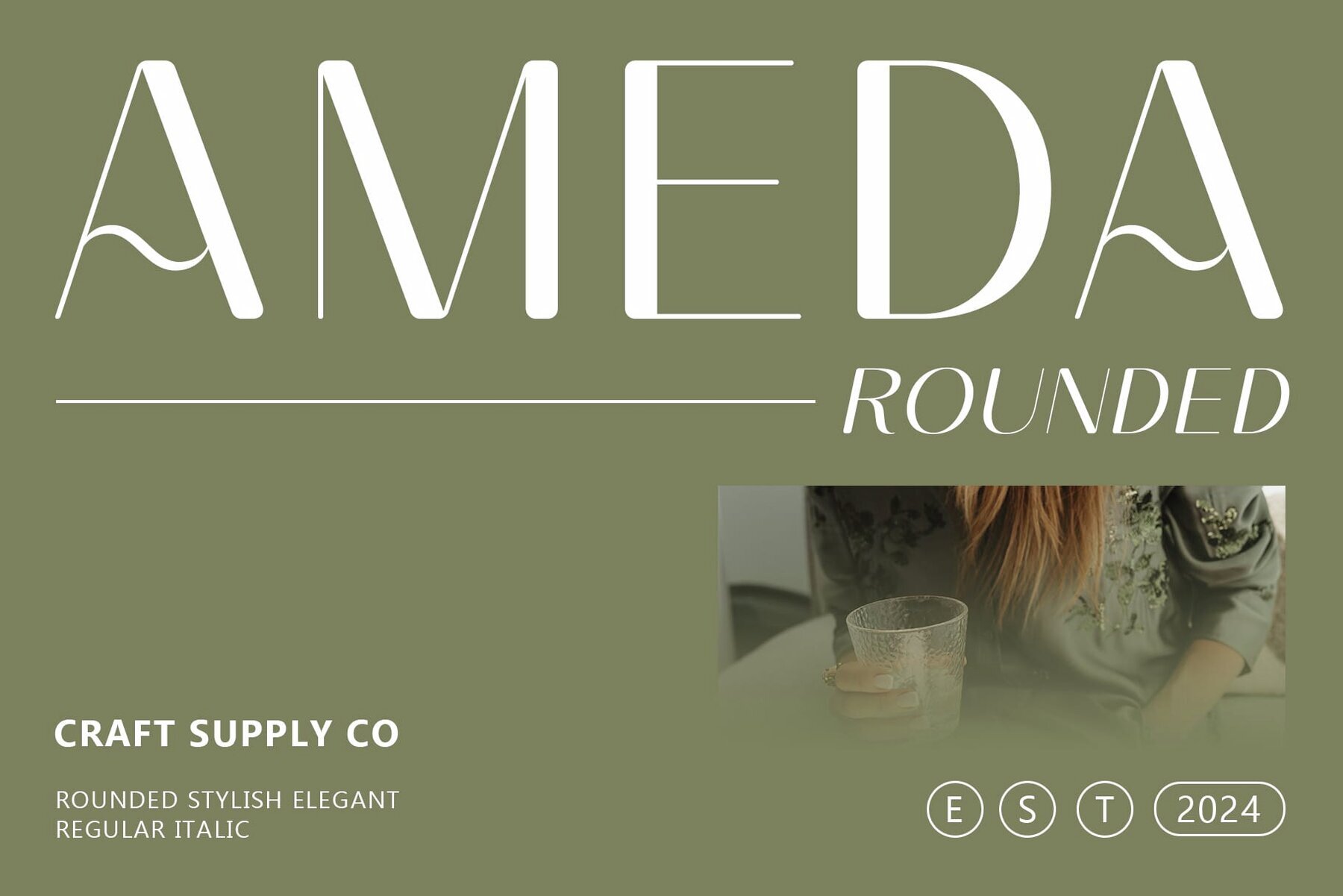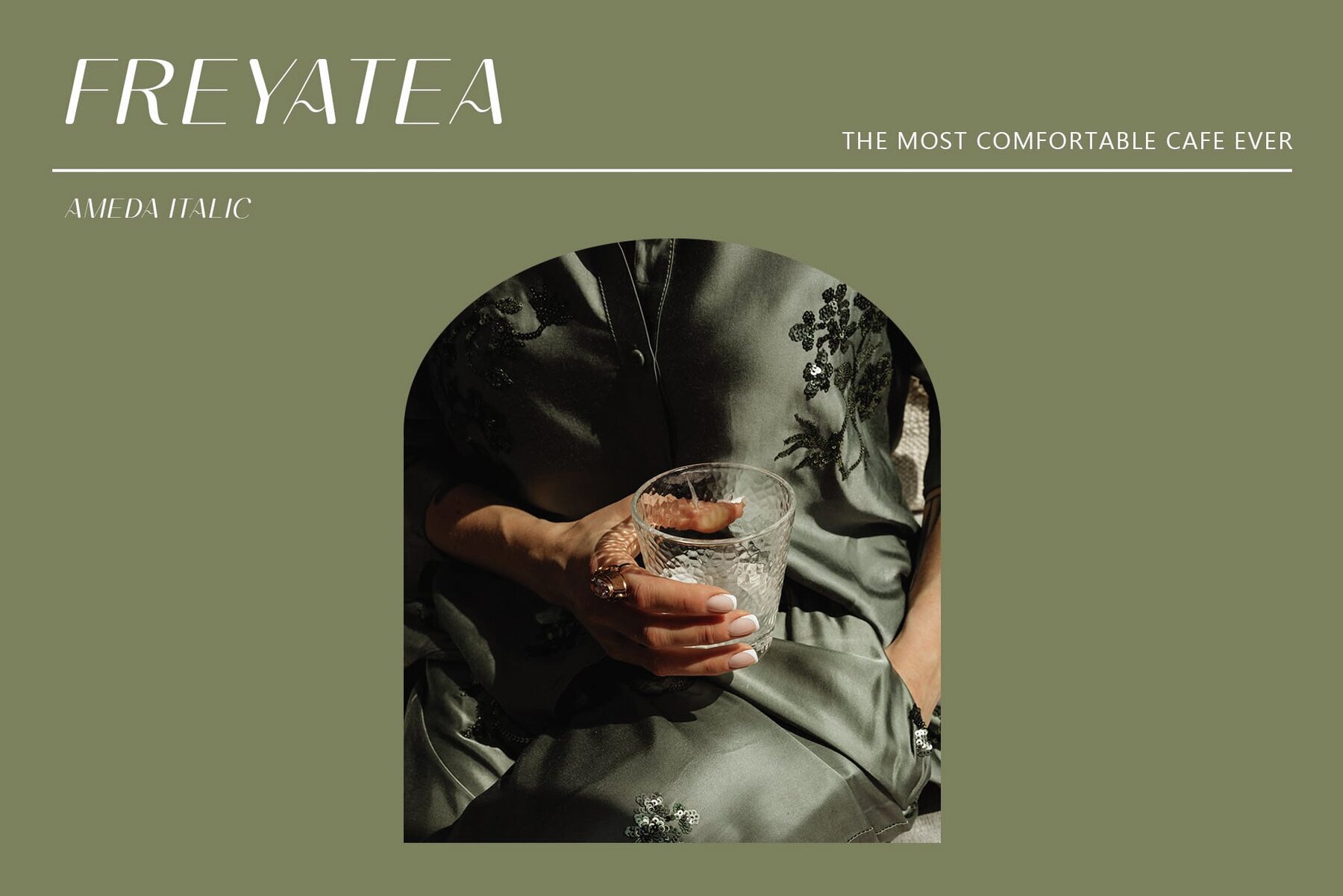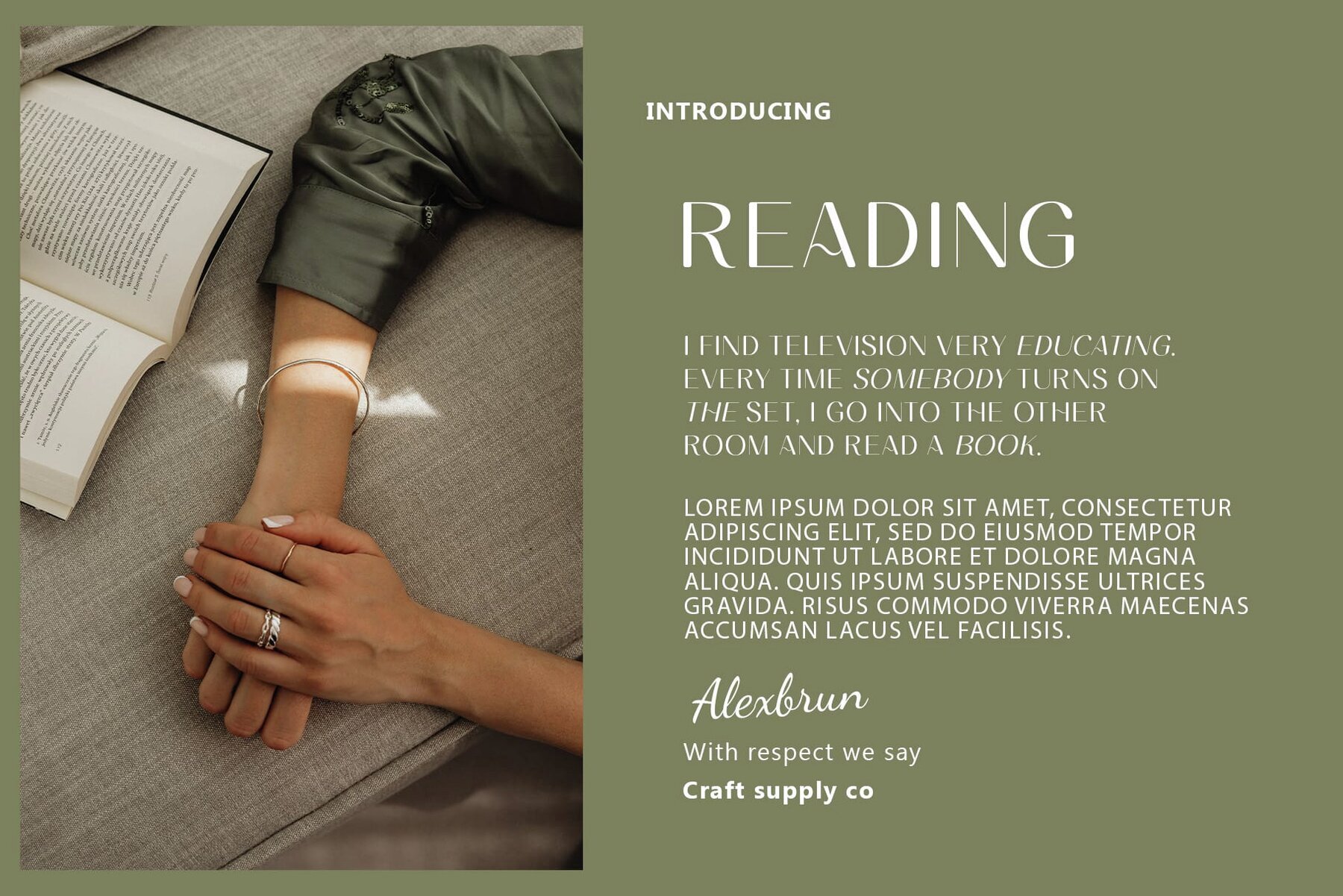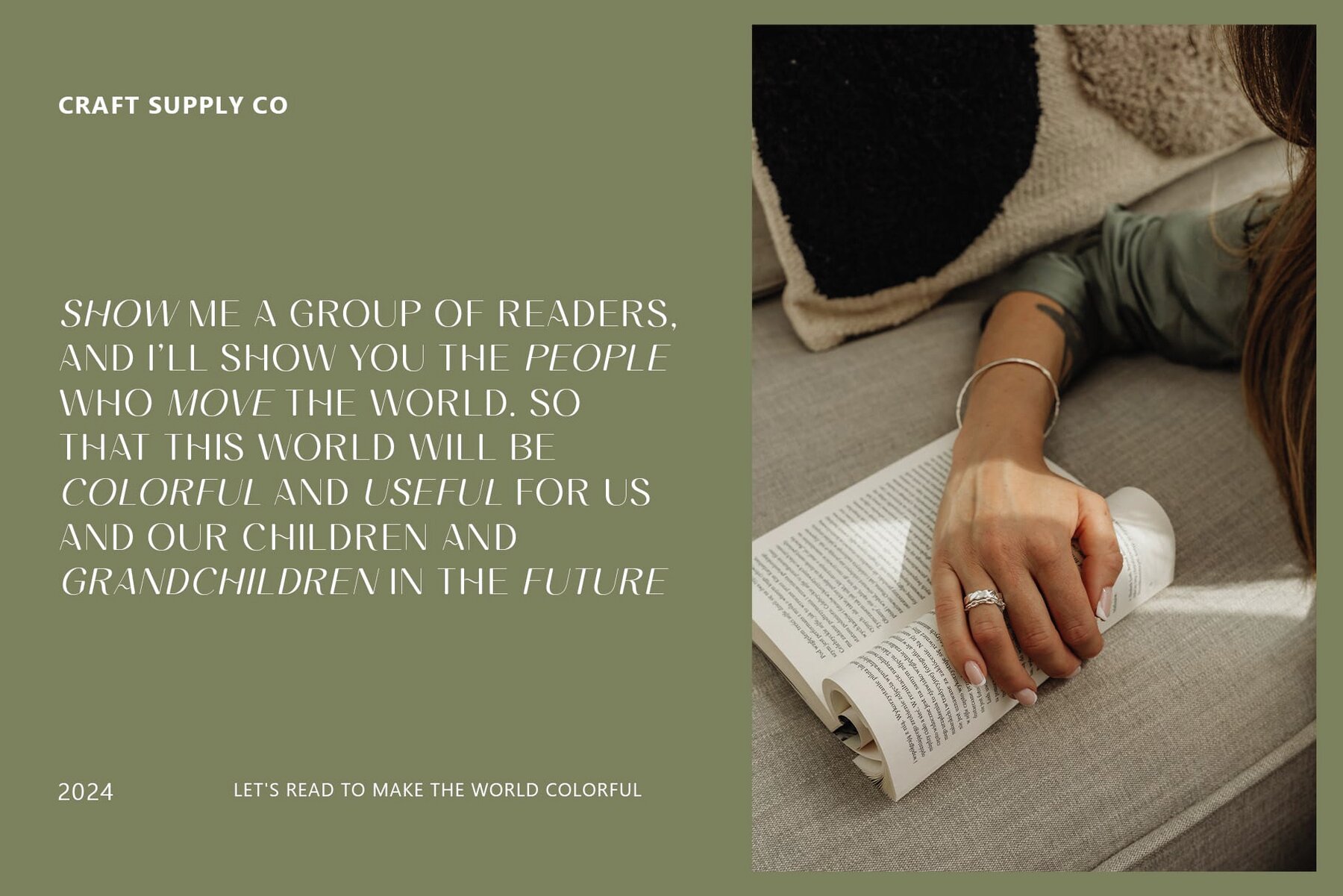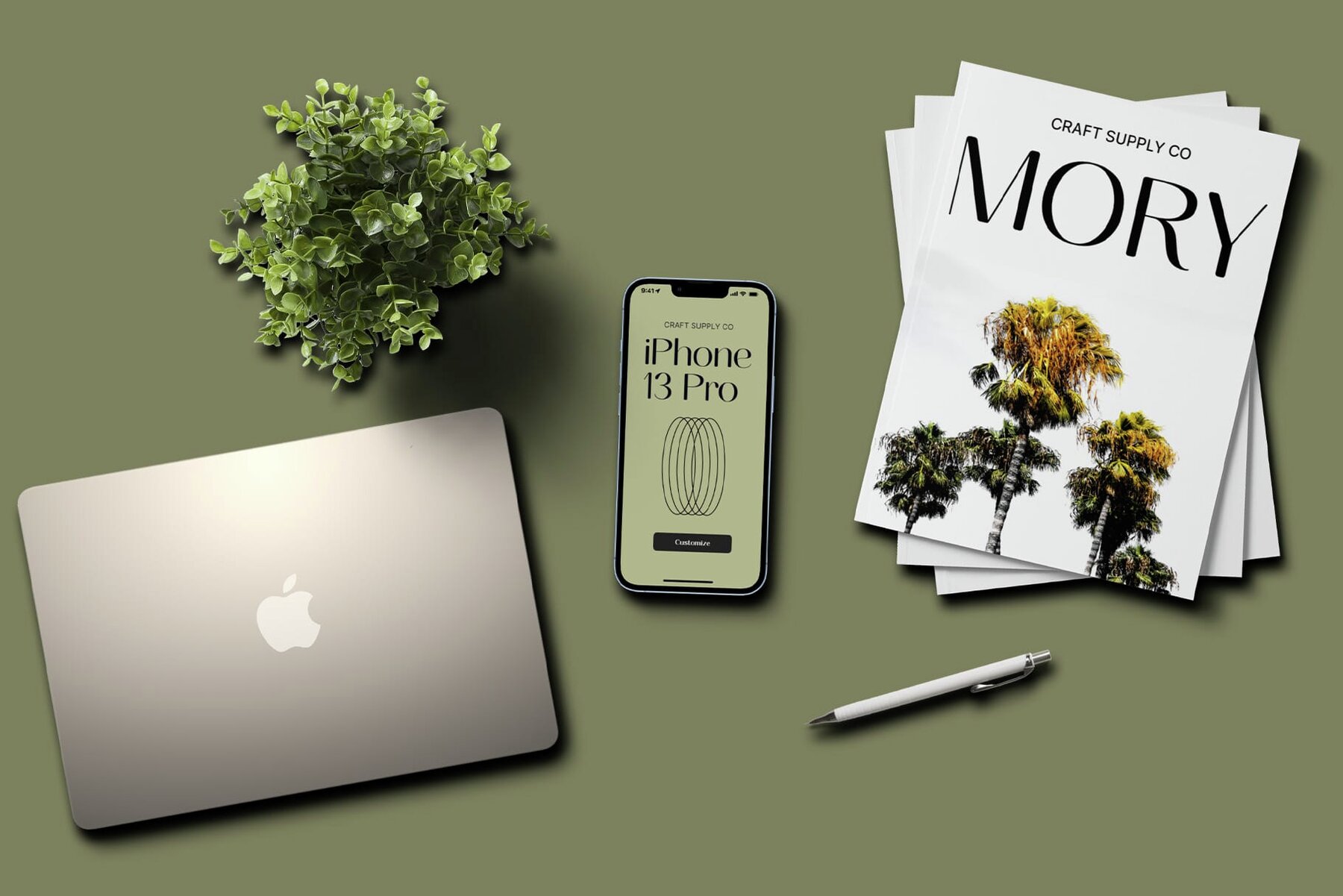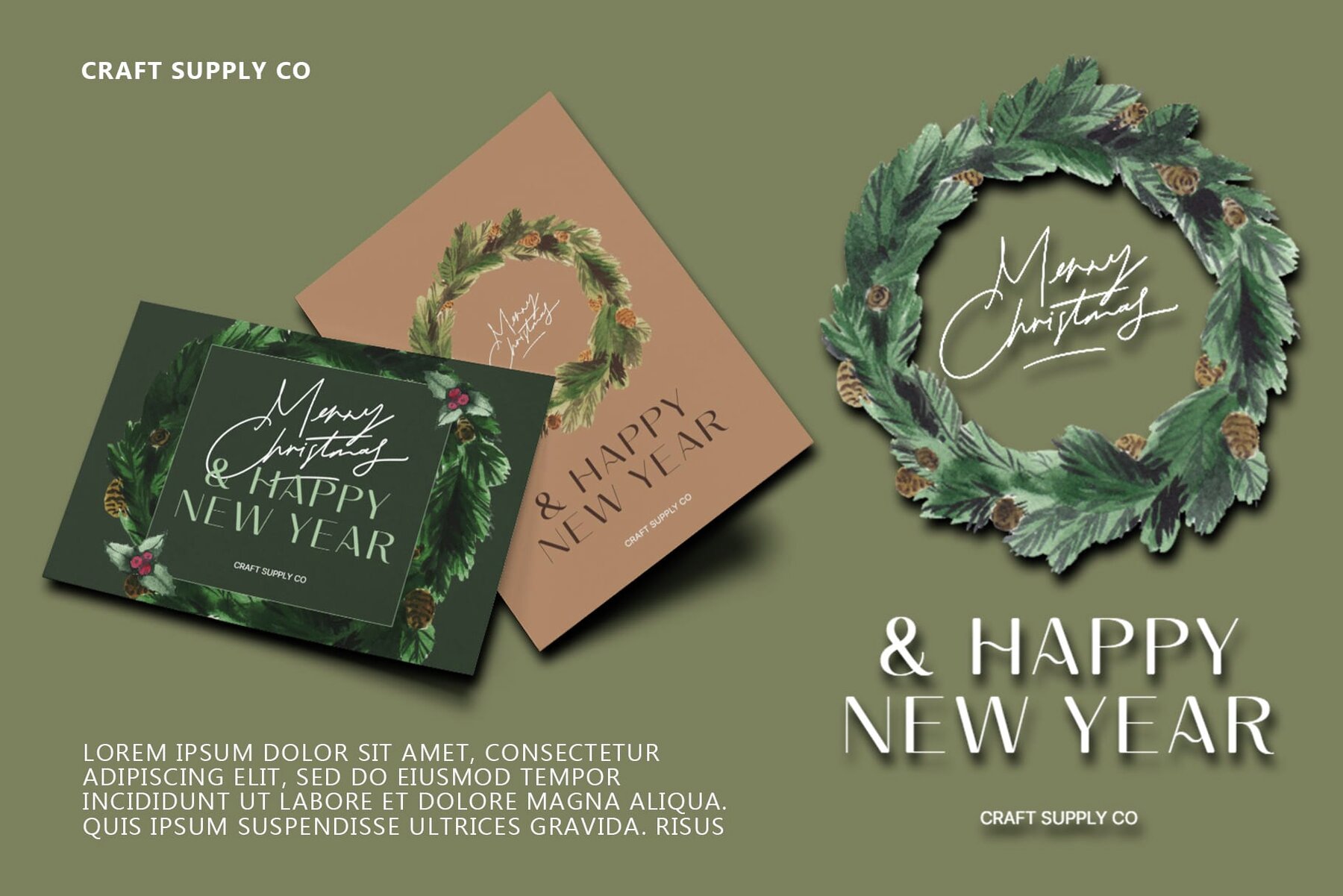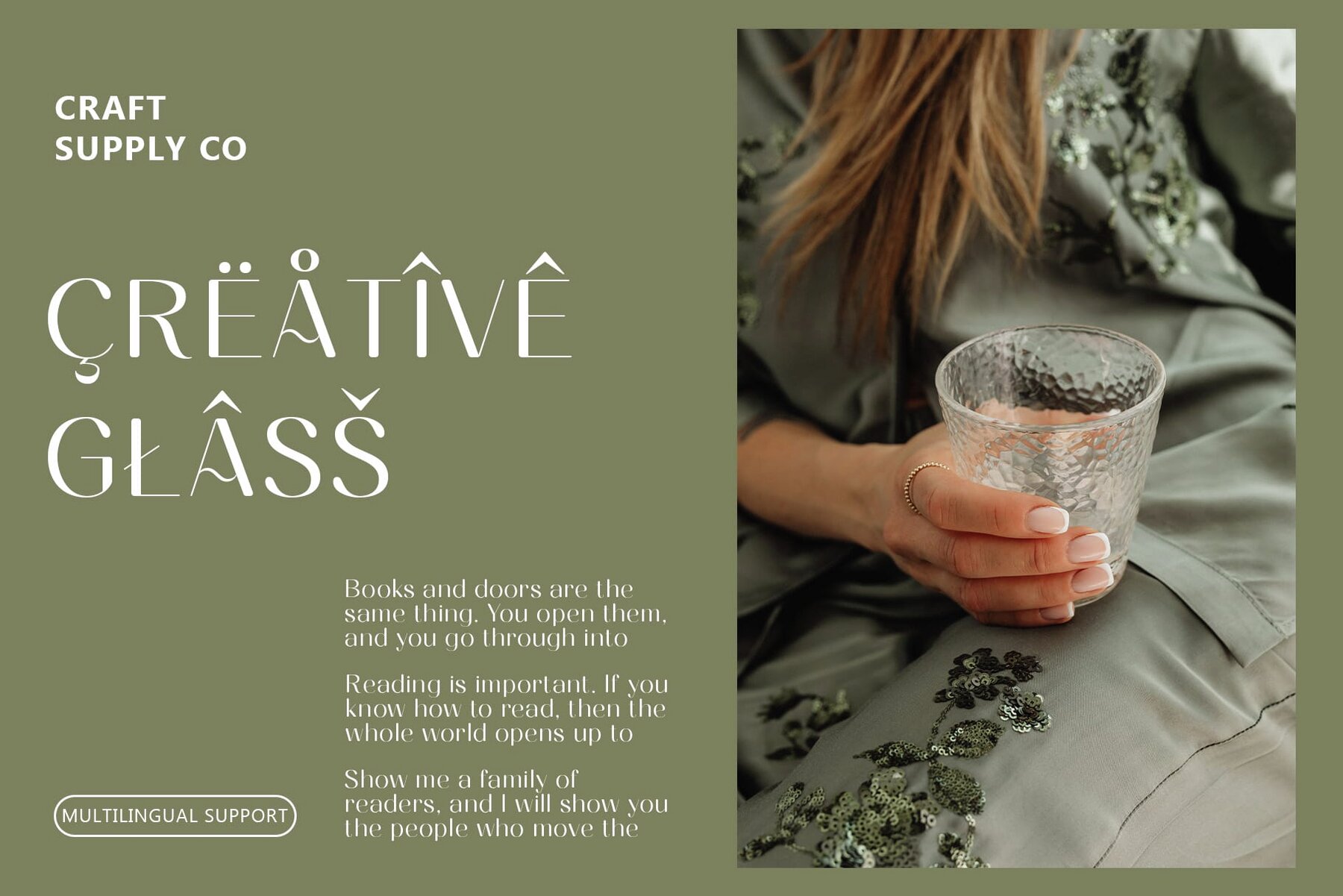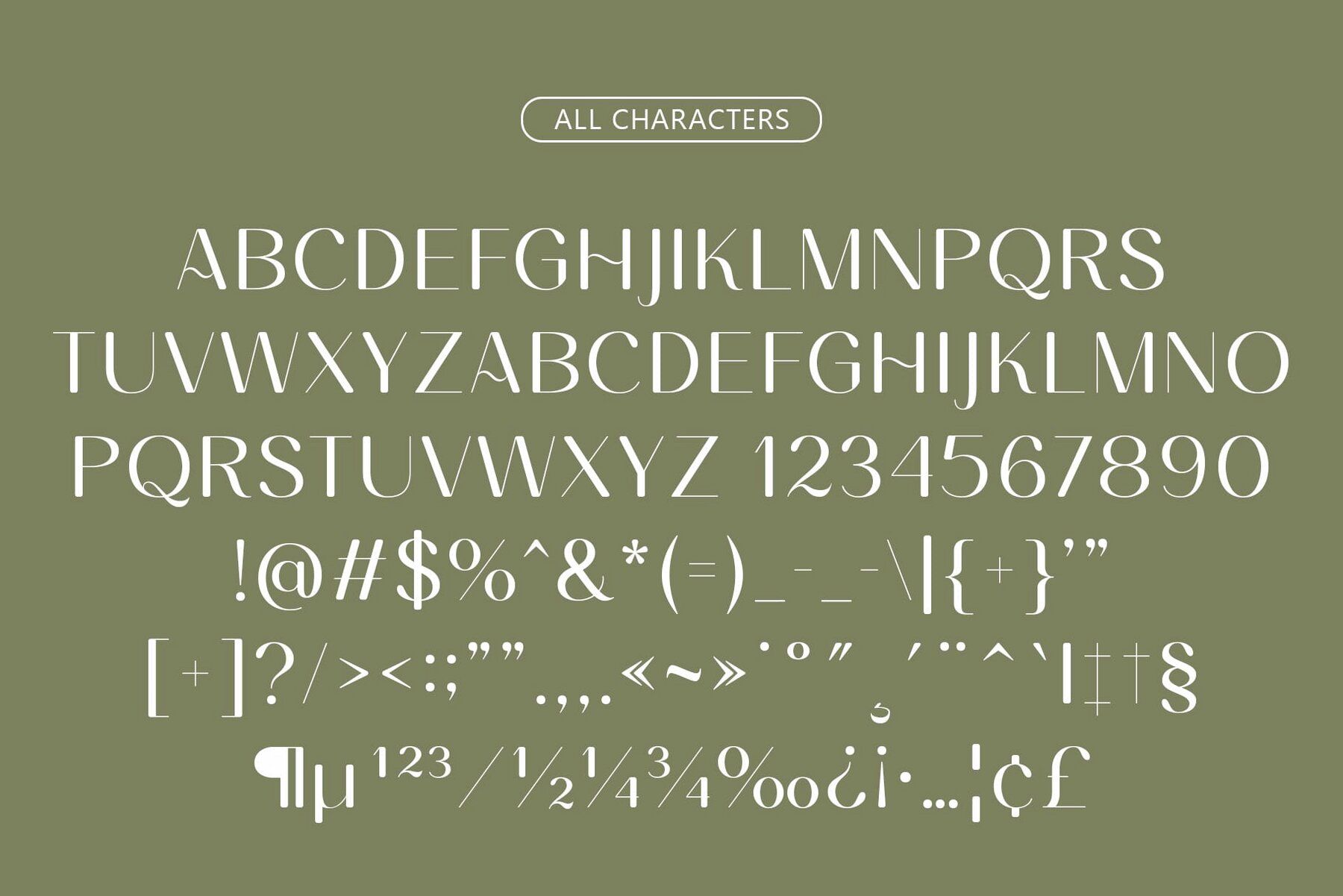
Ameda Rounded Font
Ameda Rounded presents a clean, geometric sans-serif design paired with a modernist aesthetic, making it perfect for various display applications. Its elegant simplicity and high legibility merge sophisticated form with contemporary style, ideal for branding, editorial, and digital experiences that require a polished, professional appearance.Ameda Rounded: Modern Geometric Sans-Serif